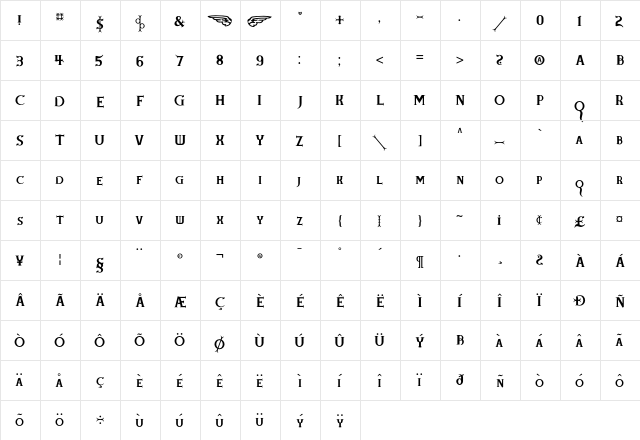
BadAngel Saint
Design Context for BadAngel Typeface
BadAngel offers clean, dependable letterforms without strong stylistic allegiance, making it a practical choice for designers who need flexibility.